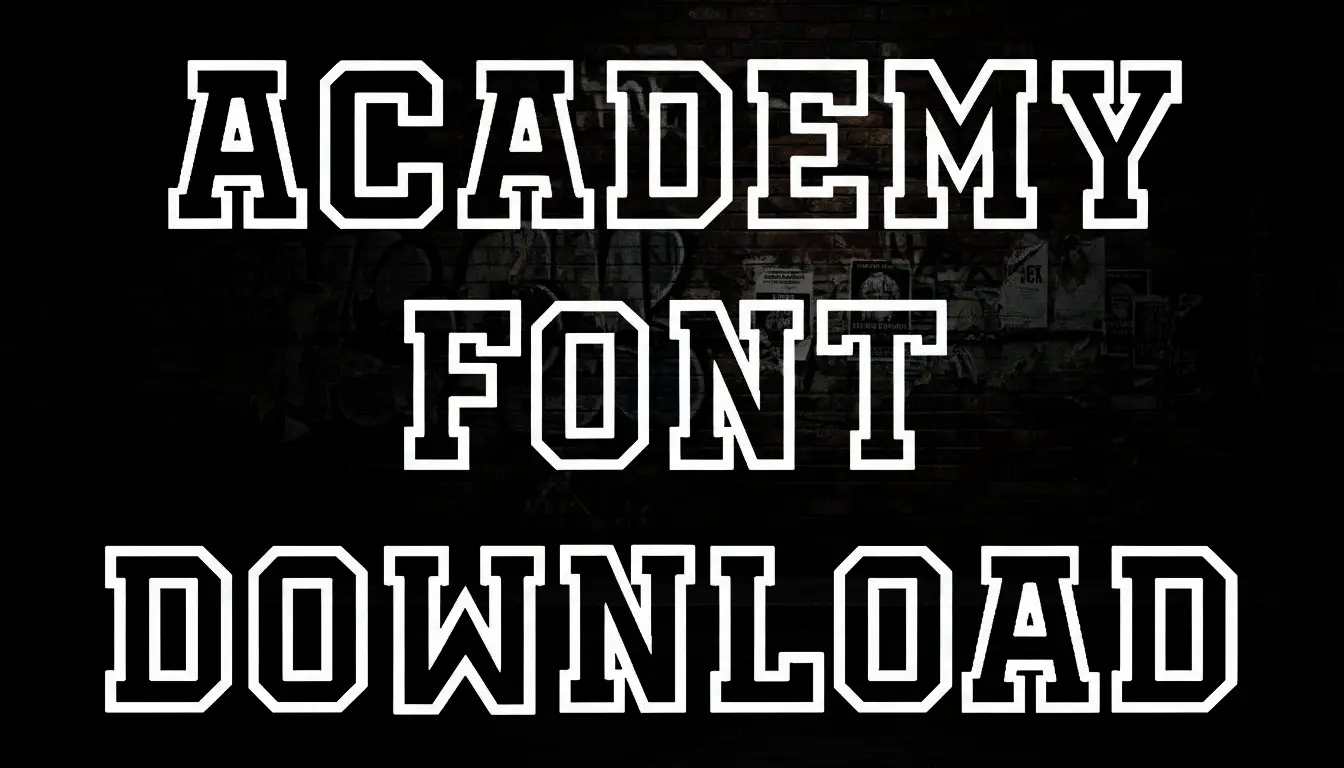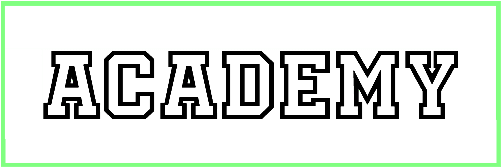
Academy Font
Academy
Academy is a fancy font designed by Vladimir Nikolic. Bold and full of character, it's built to stand out rather than blend in. You can download it for free and test it with your own words in the preview above.
What You Can Type With Academy
With complete upper and lowercase letters and all ten digits, Academy is ready for real wording, not just a single headline. Everyday marks like ! and ? are there too. There are no accented letters like é or ñ, so it's best kept to English text.
Where Academy Works Best
Academy is a natural fit for posters, logos and eye-catching headlines. Use it for one standout word or headline and let simpler fonts handle the rest.
Does Academy support accented letters?
No. Academy has no accented letters such as é, ñ or ü, so it's best for English text.